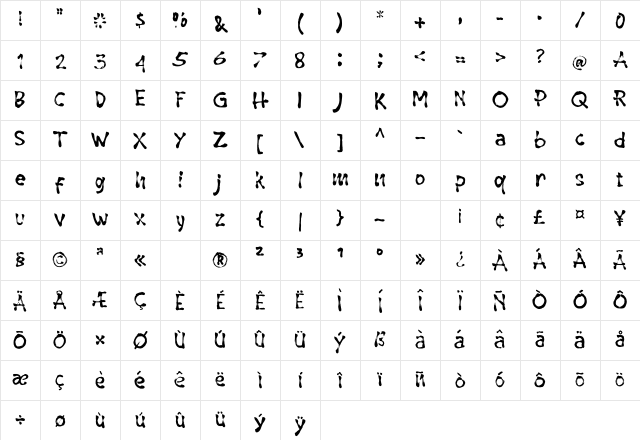
Ryujin Attack Regular Free Font
Ryujin Attack Regular
Foundry: Jetsmax Studio
Designer: Khairil Anwar
Design Context for Ryujin Attack
Ryujin Attack is a composed and adaptable typeface that performs quietly and consistently across a wide range of design contexts.